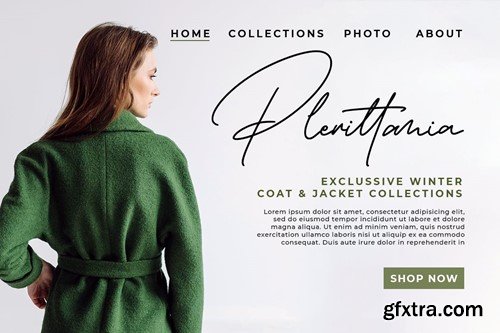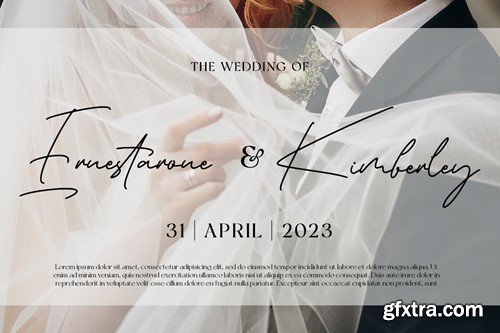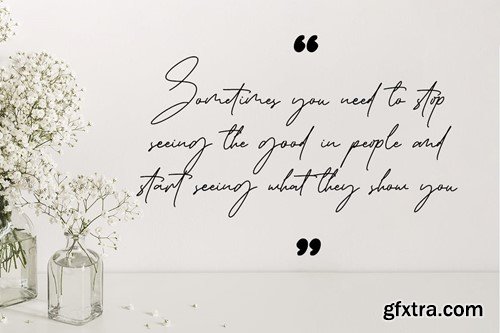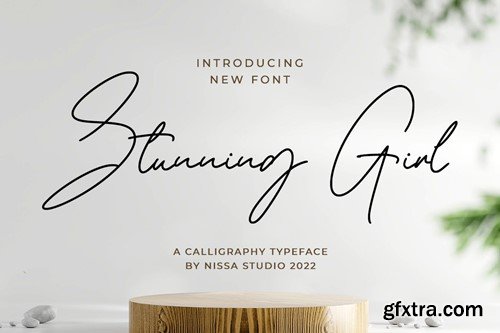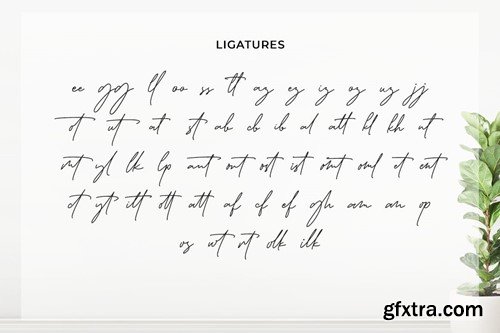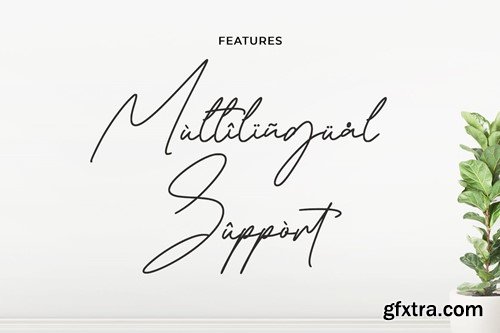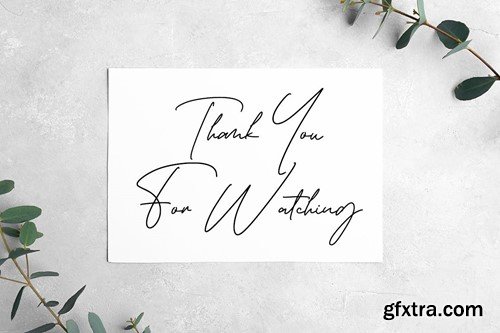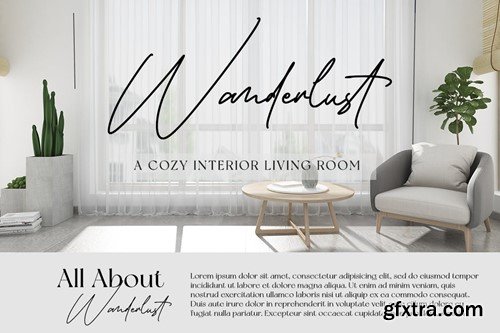
Stunning Girl - Signature Font
Stunning Girl is a beautiful and delicate handwritten font with a unique feel and a stunning impact. It will add a luxury spark to any design project that you wish to create! What's Included: PUA encoded = Accessible in the Adobe Illustrator, Adobe Photoshop, Adobe InDesign, even work on Microsoft Word. PUA Encoded Characters - Fully accessible without additional design software. Each Font Has: Thank You